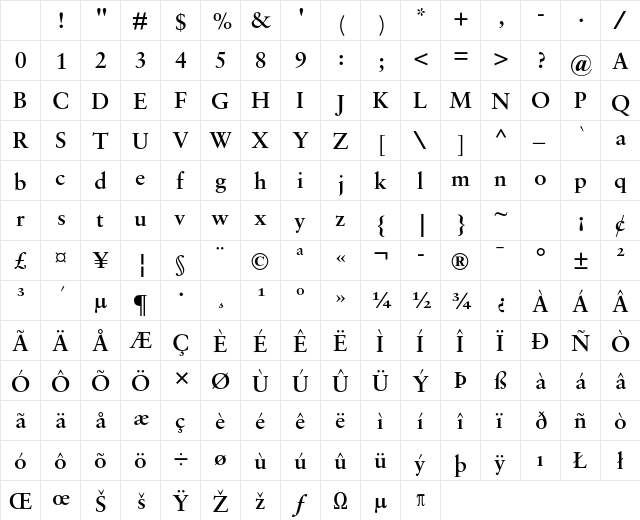
Complete Sabon MT Std Semibold glyph index. Displaying only characters natively supported by Sabon MT Std Semibold font.
Sabon MT Std is a composed and adaptable typeface that performs quietly and consistently across a wide range of design contexts. Its bold stroke weight gives it real presence on the page.